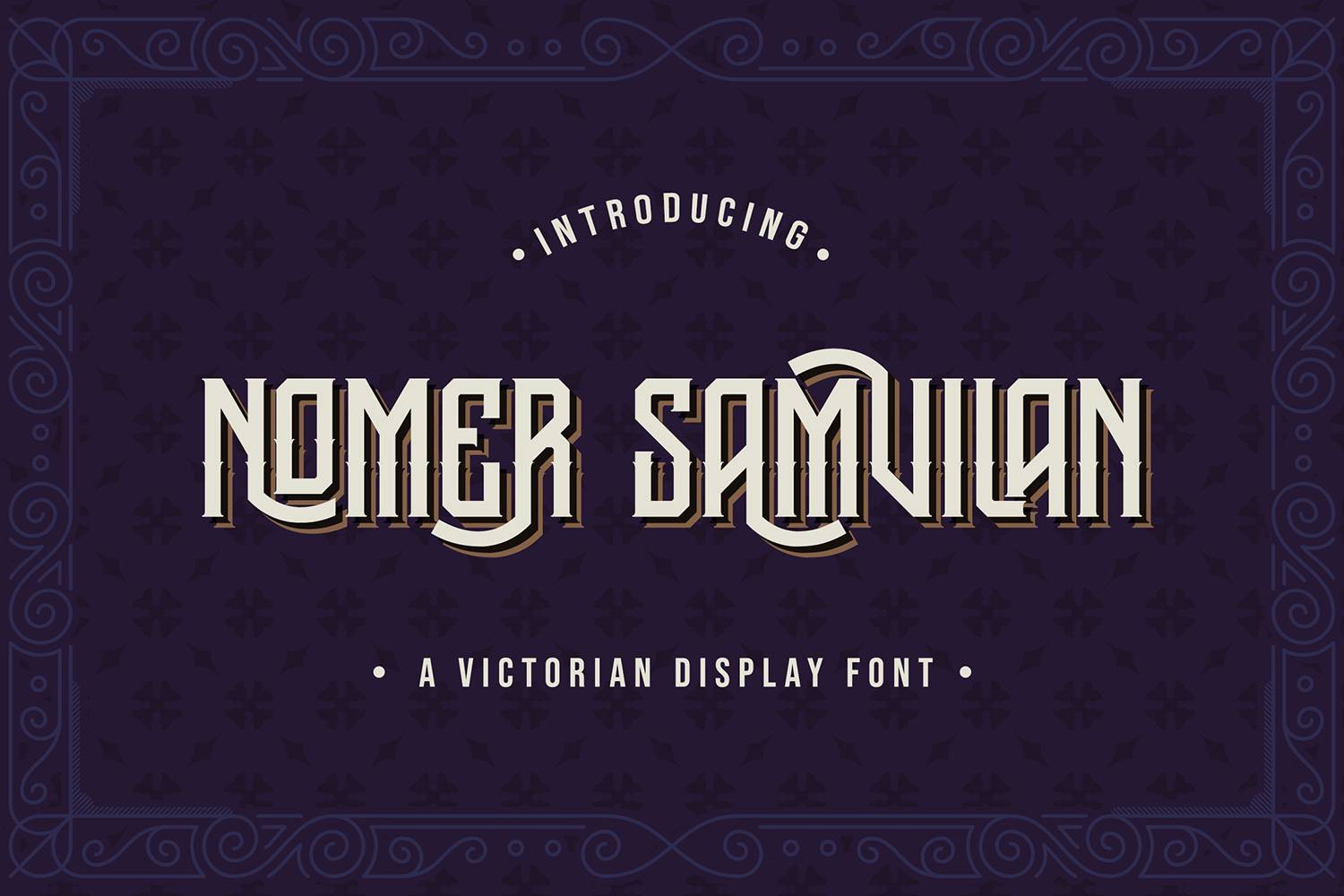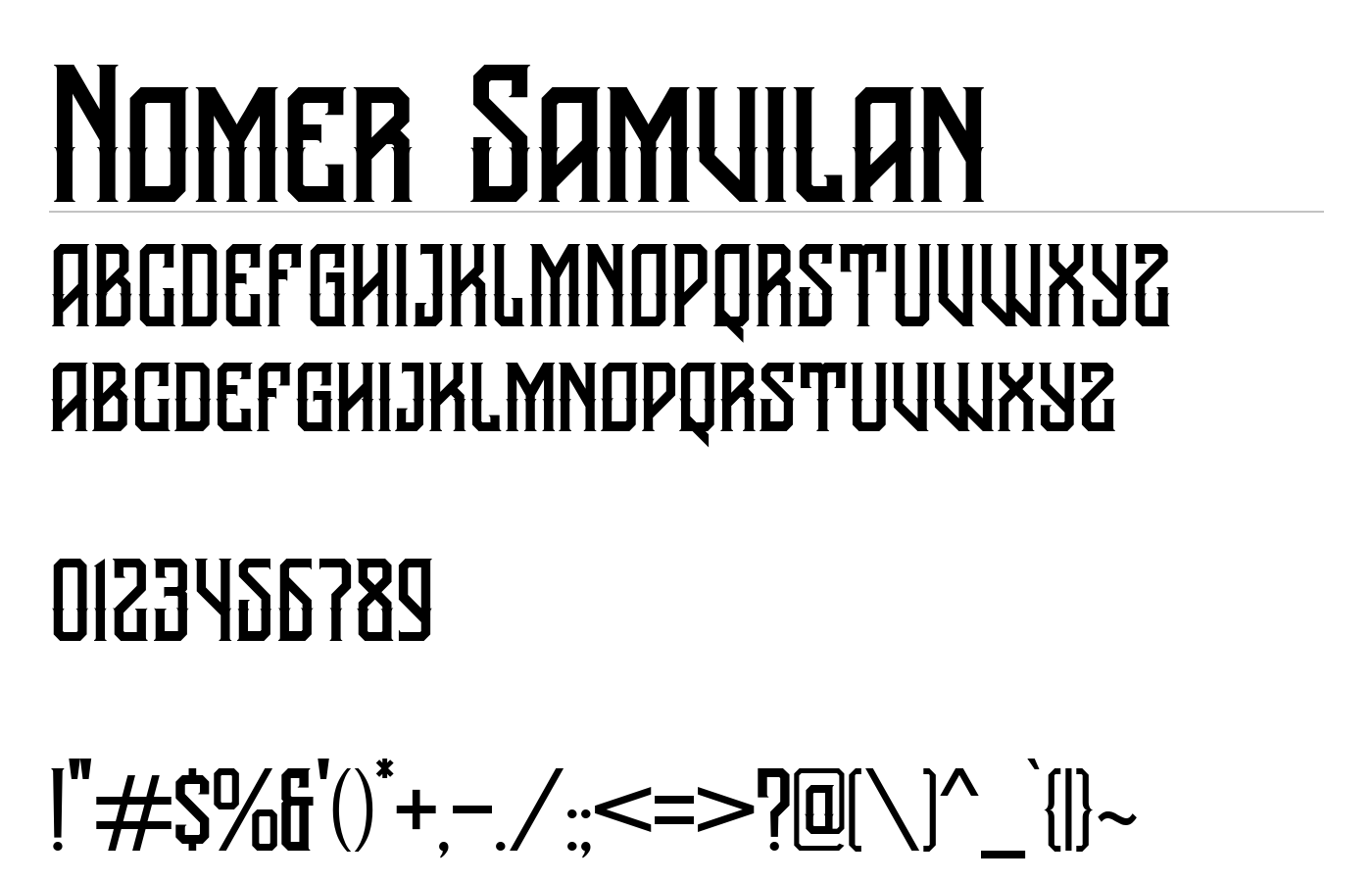
Nomer Samvilan is a bold, condensed serif font with a strong, geometric structure and sharp, angular details that create a striking, almost gothic appearance. Its high contrast between thick and thin strokes and unique letterforms make it ideal for impactful headlines, logos, and designs that want to convey a modern yet classic edge with a touch of drama. This font works best in display use where its distinctive style can stand out and command attention.
Nomer Samvilan Font
About Nomer Samvilan Font